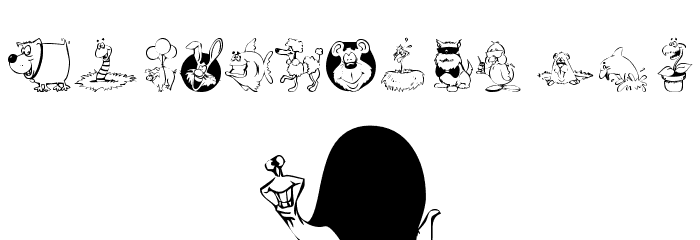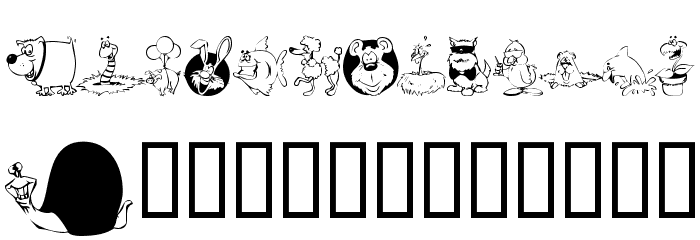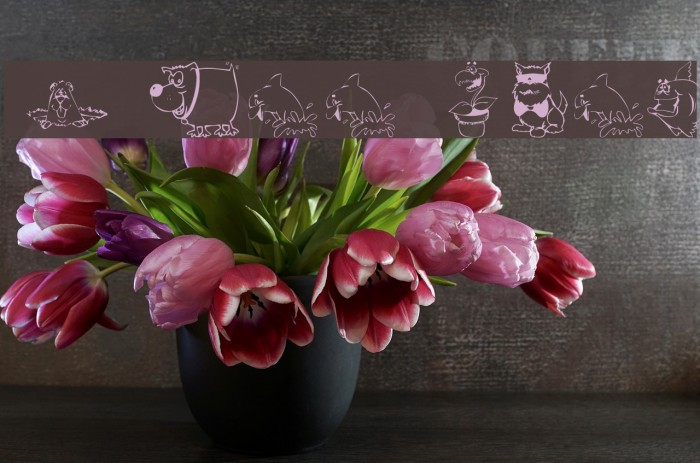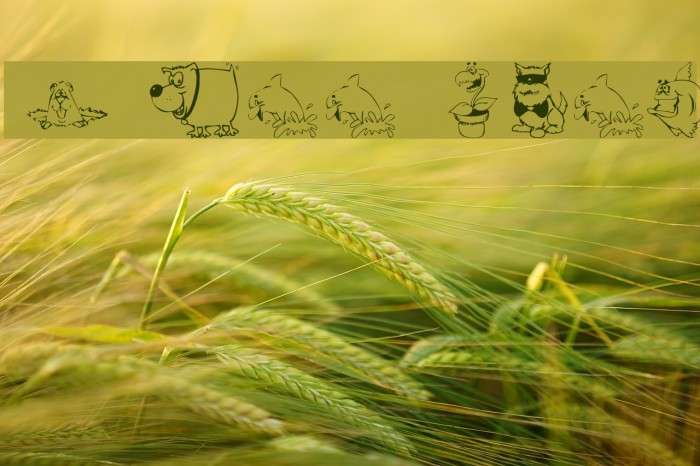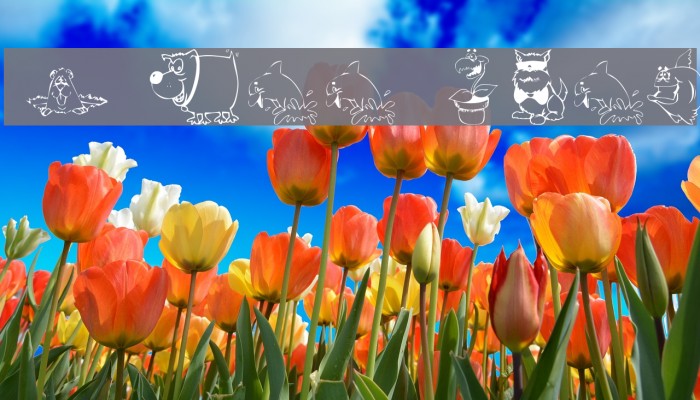
KR All Smiles Font
This set of characters is a playful and whimsical collection of cartoon-style illustrations. Each character is unique, featuring a variety of animals and humorous figures, all depicted with exaggerated expressions and poses. The style is reminiscent of classic comic strips, with bold outlines and simple, expressive details. The characters are designed to convey a sense of fun and lightheartedness, making them ideal for projects that require a touch of humor and creativity. The illustrations are consistent in their artistic approach, ensuring a cohesive look across the entire set.
A whimsical collection of cartoon-style characters with playful expressions.
- Proposed Projects: Ideal for children's books, playful branding, greeting cards, and educational materials.
- Overall Style: Playful, Cartoonish
- Use Case: Decorative elements, Illustrations